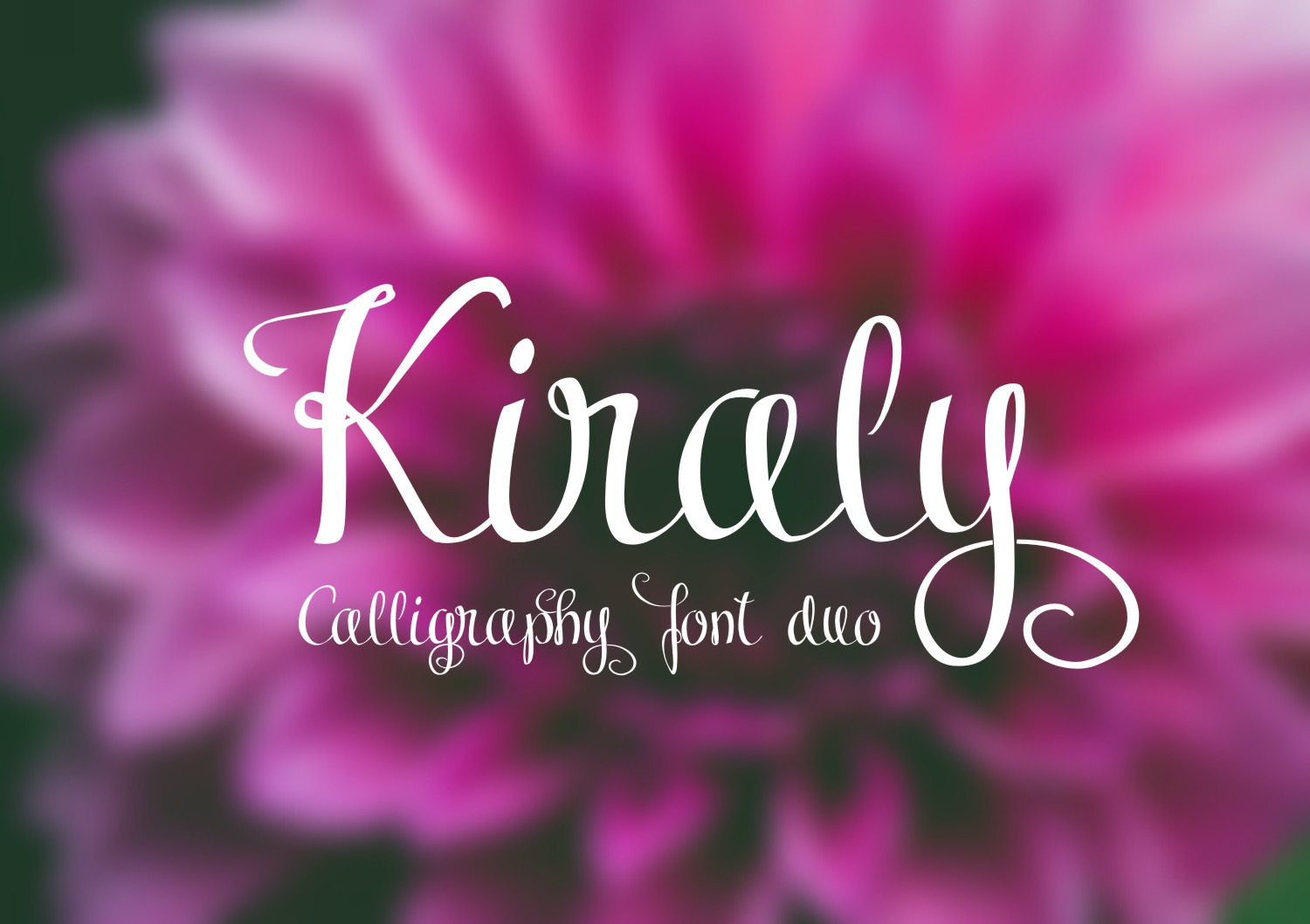
Kiraly font duo
Introducing Kiraly calligraphy font duo. Perfect for wedding desings and many other creative craft area such as stencils, engraving, laser cutting and more!